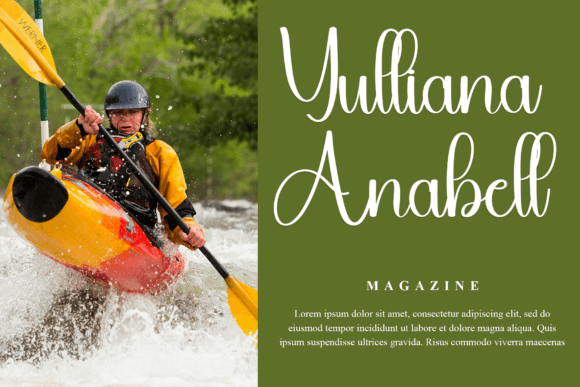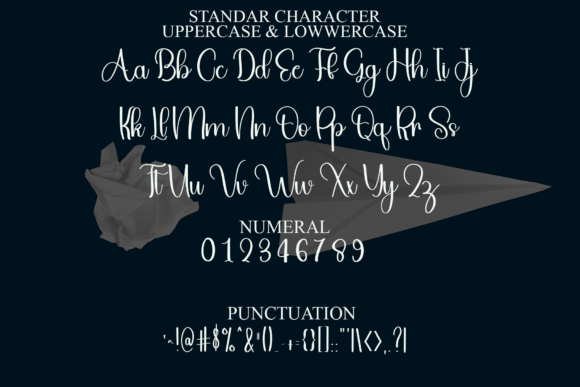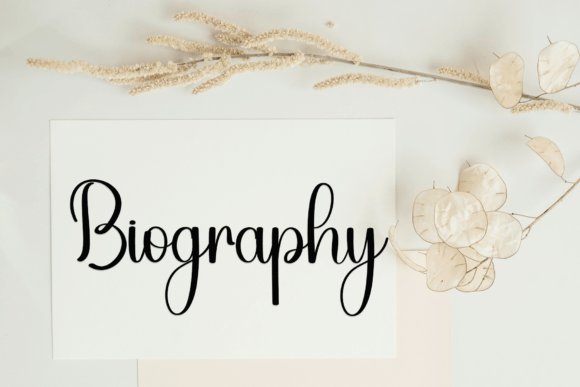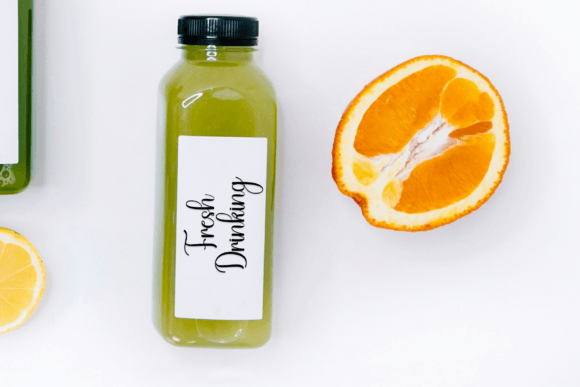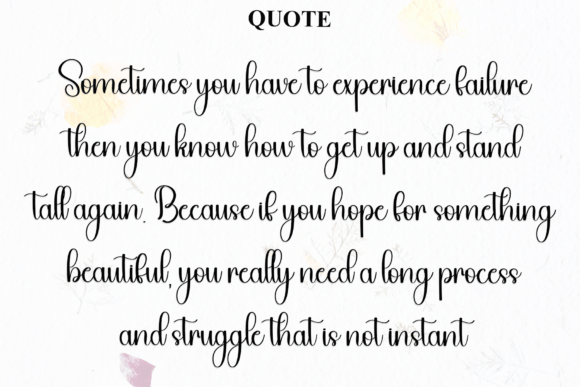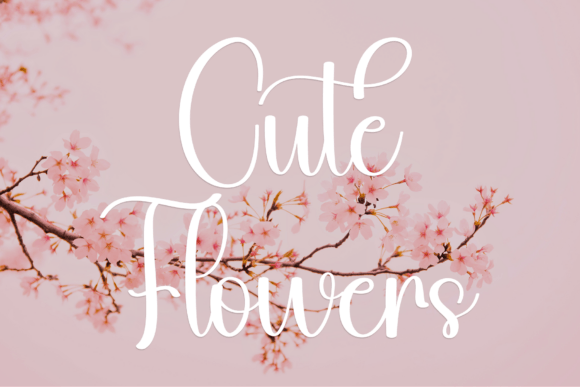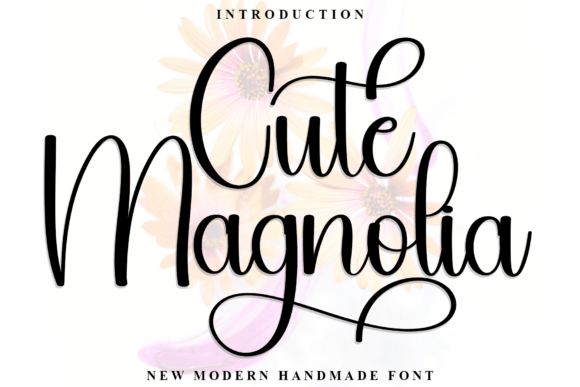
Cute Magnolia Font: Elevate Your Designs with Elegance and Personality
Are you on the hunt for a font that exudes elegance, sophistication, and a touch of whimsy? Look no further than the Cute Magnolia Font. This beautiful, handwritten font is perfect for designers and crafters seeking to add a personal touch to their projects. In this article, we’ll dive into the world of Cute Magnolia, exploring its unique features, uses, and benefits.
What is Cute Magnolia Font?
Cute Magnolia is a unique and elegant handwritten font, carefully crafted to bring a touch of personality to your designs. Its flowing lines, delicate curves, and charming imperfections make it an ideal choice for a wide range of projects, from wedding invitations and thank you cards to logos and greeting cards.
Key Features of Cute Magnolia Font
- Handwritten Elegance: Cute Magnolia boasts a beautiful, handwritten aesthetic that adds a touch of warmth and sophistication to your designs.
- Unique Character Set: This font features a comprehensive character set, including uppercase and lowercase letters, numbers, and punctuation marks, ensuring that you have everything you need to create stunning designs.
- Personalized Style: Cute Magnolia’s elegant and whimsical feel makes it perfect for designs that require a personal touch, such as wedding invitations, thank you cards, and greeting cards.
- High-Quality Design: This font is meticulously designed to ensure that it looks beautiful in a variety of sizes and resolutions, making it perfect for both digital and print applications.
Uses of Cute Magnolia Font
Cute Magnolia is an incredibly versatile font that can be used in a wide range of projects, including:
- Wedding Invitations: Add a touch of elegance and romance to your wedding invitations with Cute Magnolia.
- Thank You Cards: Express your gratitude in style with this beautiful font.
- Greeting Cards: Create stunning greeting cards for special occasions, such as birthdays, anniversaries, and holidays.
- Logos: Use Cute Magnolia to create a unique and memorable logo for your business or brand.
- Stationery: Add a personal touch to your stationery, including letterheads, envelopes, and notebooks.
Benefits of Using Cute Magnolia Font
So, why choose Cute Magnolia Font for your designs? Here are just a few benefits:
- Elegance and Sophistication: Cute Magnolia adds a touch of elegance and sophistication to your designs, making them perfect for special occasions.
- Personality and Whimsy: This font’s unique, handwritten aesthetic gives your designs a personal touch that’s sure to stand out.
- Versatility: Cute Magnolia can be used in a wide range of projects, from digital designs to print applications.